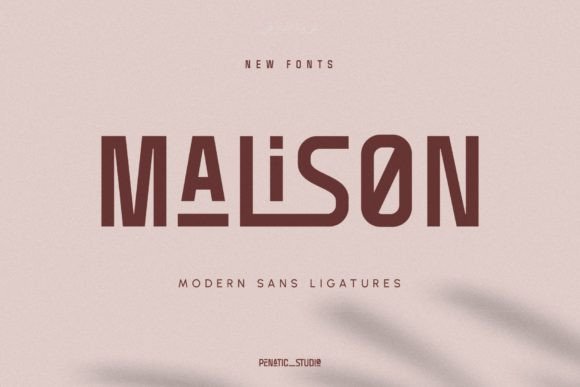
Welcome to the world of Malison Font, a stunning sans serif font designed to elevate your creations with a touch of elegance and sophistication. With its meticulously crafted letterforms and extensive collection of alternatives and ligatures, Malison offers endless possibilities for customization and creativity. Whether you're designing eye-catching logos, creating stunning wedding invitations, or crafting engaging social media posts, Malison will add a touch of magic to your work.
Immerse yourself in the world of modern typography with Malison, a font meticulously designed to make a lasting impression. Its bold and sturdy strokes exude confidence and strength, while its subtle curves add a touch of grace and femininity.
Born from the creative minds at Penatic Studio, Malison is more than just a font; it's a versatile tool that adapts seamlessly to a wide range of design projects. From captivating branding designs to eye-catching product packaging, Malison will elevate your message and make it stand out from the crowd.
Unlock a world of creative possibilities with Malison, the perfect font for clothing brands. Its strong and distinctive character lends itself effortlessly to fashion-forward designs, creating a unique and memorable brand identity. Whether you're showcasing your latest collection on social media or designing custom labels for your products, Malison will add a touch of style and sophistication that your customers will adore.